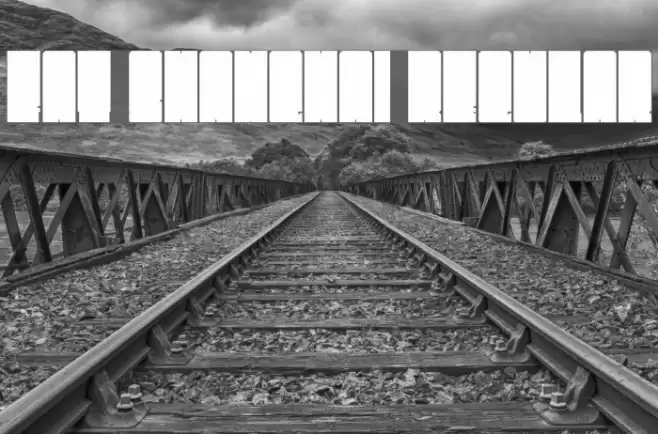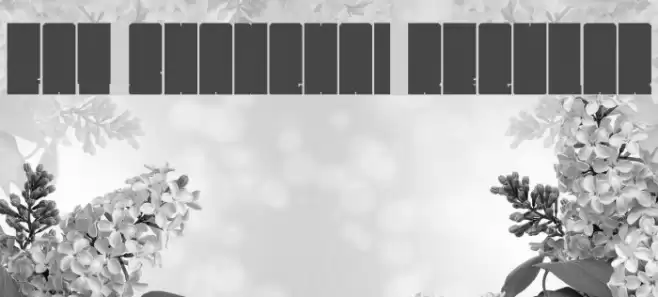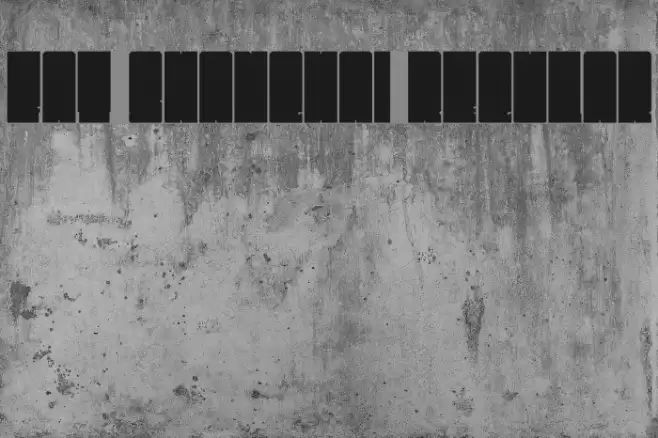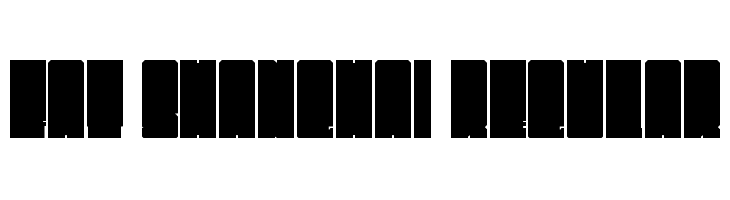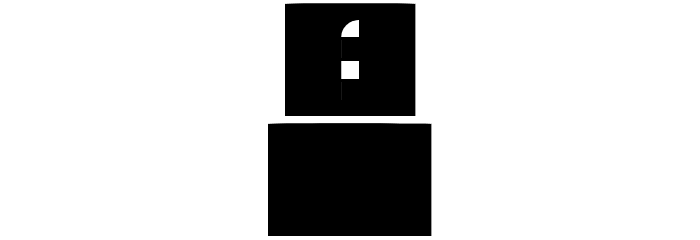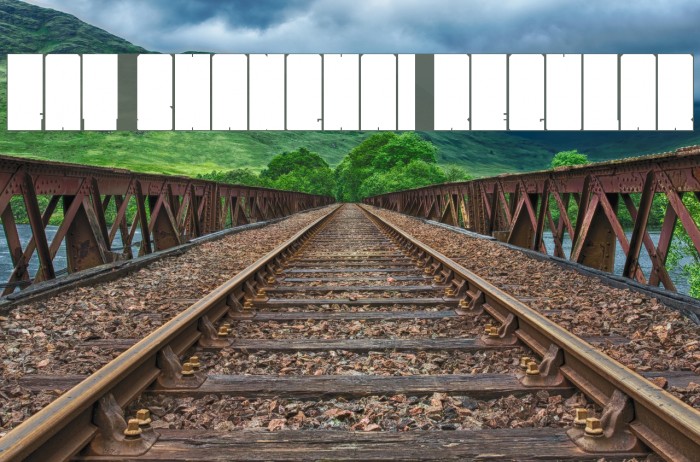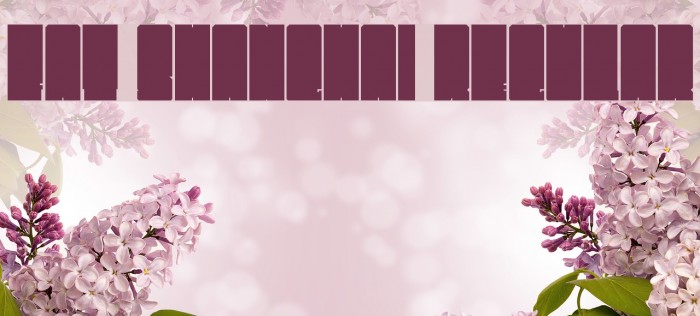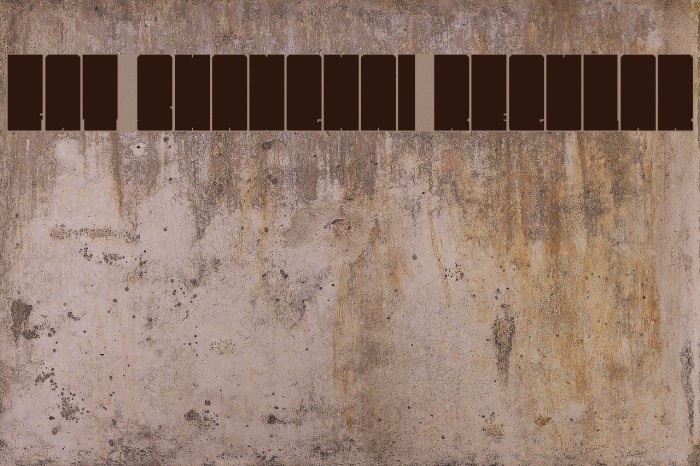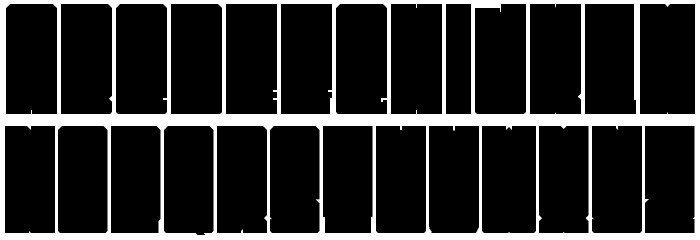
Fat Shanghai Regular Font
Fat Shanghai Regular Description
This font features an ultra-bold, blocky design with a strong geometric influence. Each character is constructed with thick, uniform strokes that create a powerful visual impact. The letters are tightly spaced, enhancing the dense and robust appearance. The overall style is modern and assertive, making it ideal for attention-grabbing headlines or branding that requires a bold statement. The uniformity in stroke width and the lack of contrast give it a monolithic feel, suitable for projects that demand a strong, unwavering presence.
Ultra-bold, blocky font with a modern, geometric style from Futuristic fonts.
- Proposed Projects: Ideal for headlines, posters, logos, and branding materials that require a bold, impactful presence.
- Character Spacing: Tight